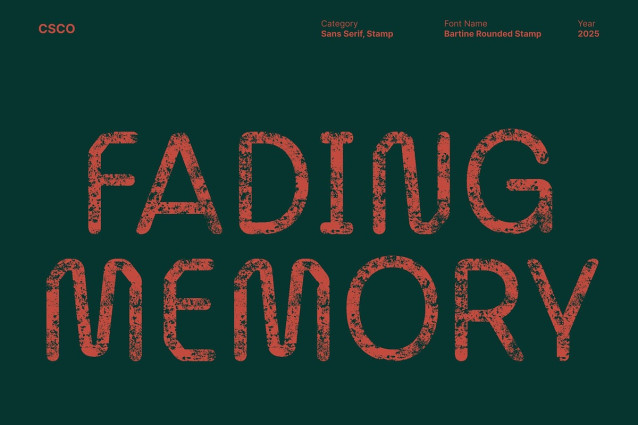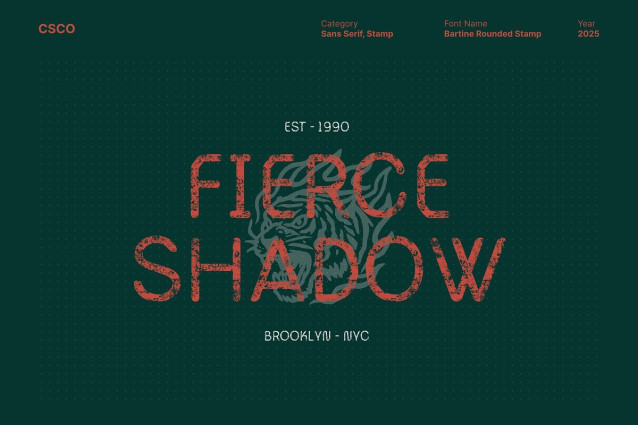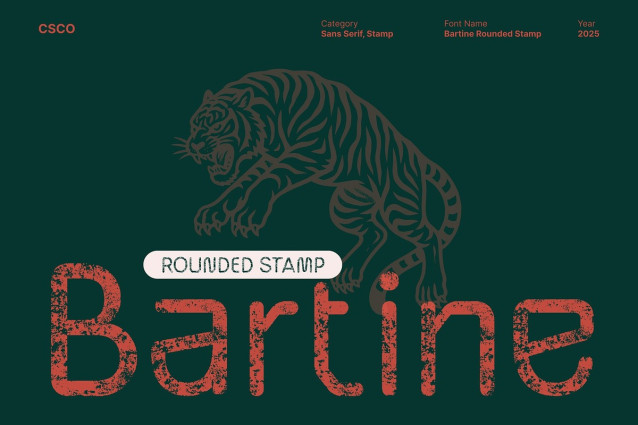
Bartine Rounded Stamp Font is a rugged sans serif font that combines industrial strength with refined rounded shapes. Its bold, structured form exudes confidence and reliability, while the softened edges bring a sense of balance and approachability making it ideal for branding, posters, and packaging that aim to stand out with personality.
Stamp Finish for Authentic Texture Enhanced with a stamp effect, this font introduces a handmade, expressive texture that adds warmth and depth to its industrial precision. The imperfect edges create a tactile, vintage impression that feels both crafted and authentic, perfect for creative projects seeking a raw yet artistic touch.
Masculine Design with Modern Appeal This typeface captures masculine energy through its sturdy letterforms and clean structure, while maintaining a modern aesthetic suited for contemporary use. It bridges strength and artistry, offering versatility across editorials, logos, and product branding that demand presence and originality.
Perfect for Expressive Industrial Projects Whether used in industrial branding, rugged packaging, or bold editorial layouts, this font commands attention with its powerful yet approachable personality. It’s a font that celebrates craftsmanship modern, expressive, and undeniably strong.